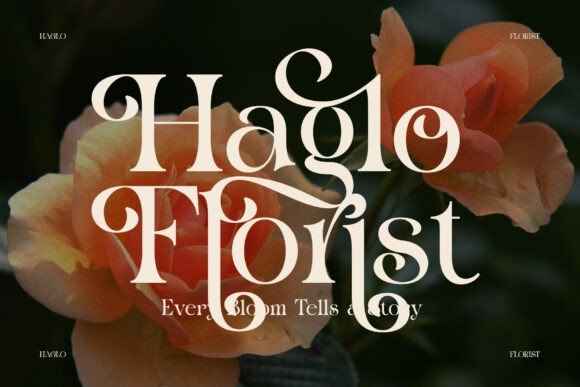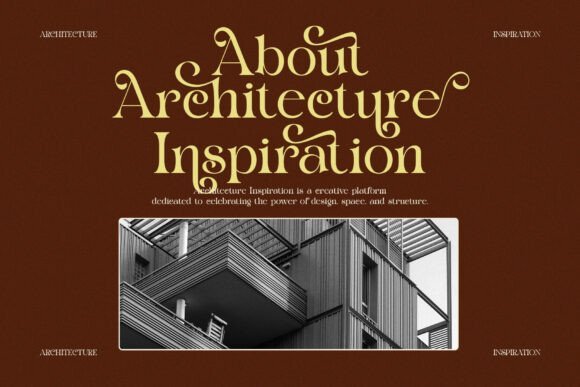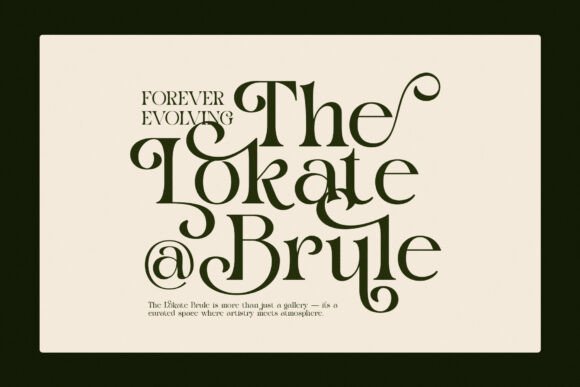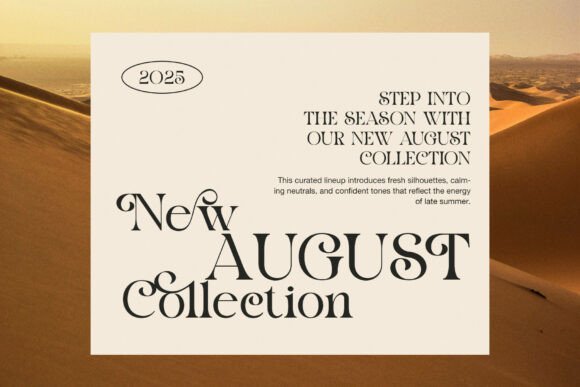
Dark Grind has a strong contrast between bold strokes and fine curves. Its letterforms feel classic, yet the large curls and stylish alternates make it look fresh and artistic. In addition, many uppercase letters include long swash forms that create a grand and custom look.